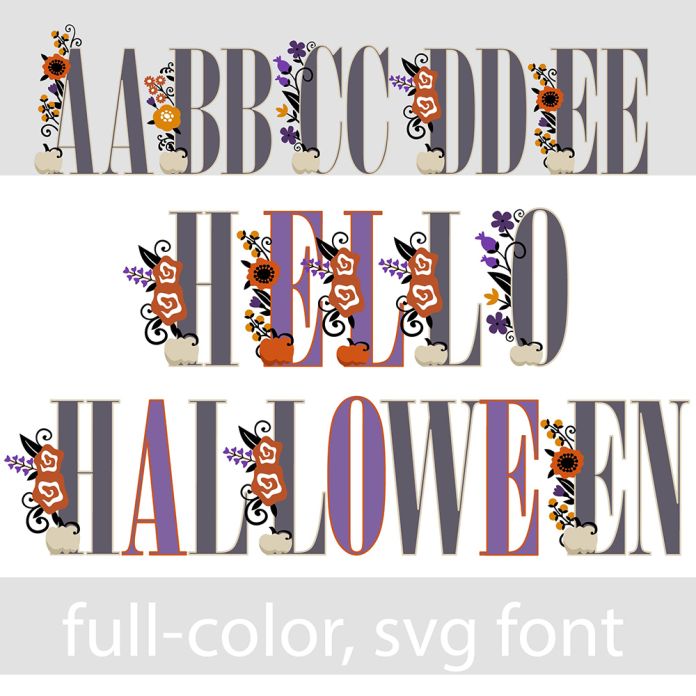
This full-color font features a simple serif font with beautiful but deadly looking florals. There is an alt case with additional colors you can access through your system's character map. This font works best for titles, displays, posters and more. Please note color fonts will show as black in non compatible programs. This font type is compatible with Silhouette Studio.